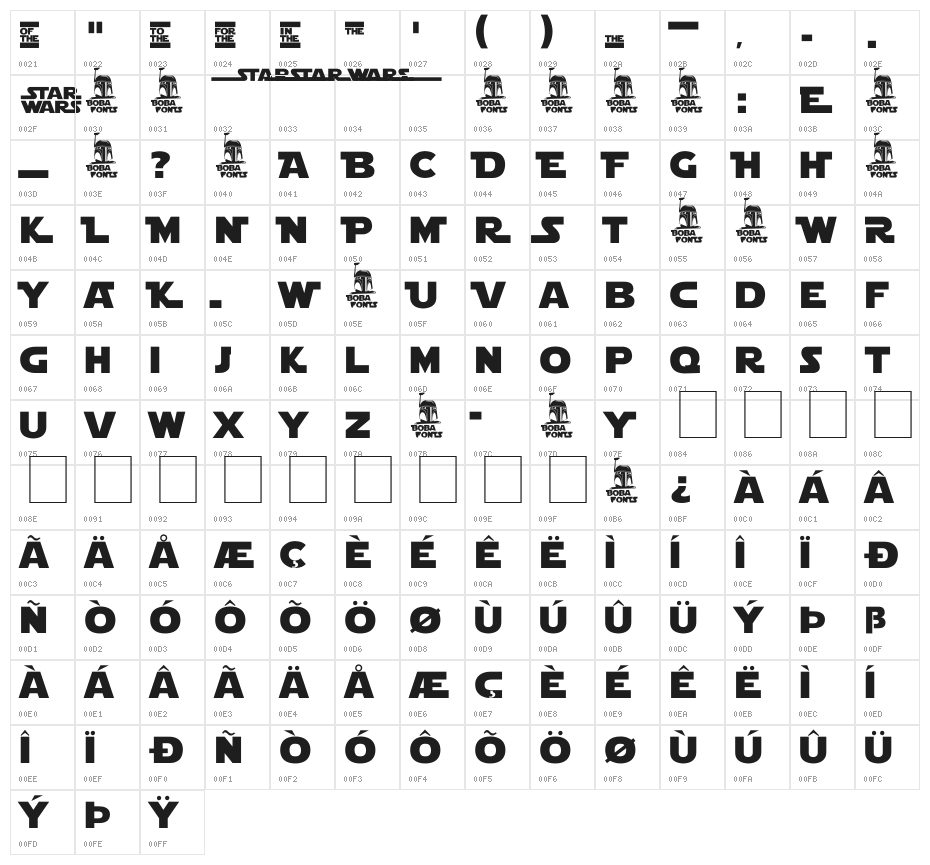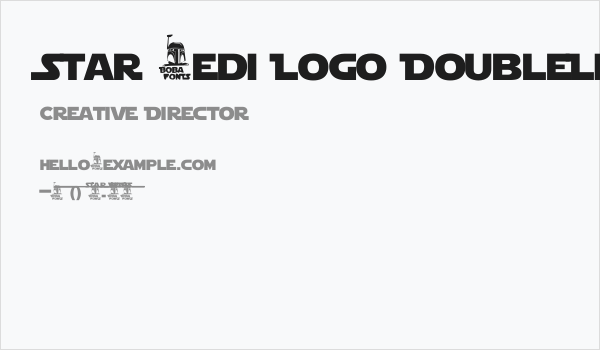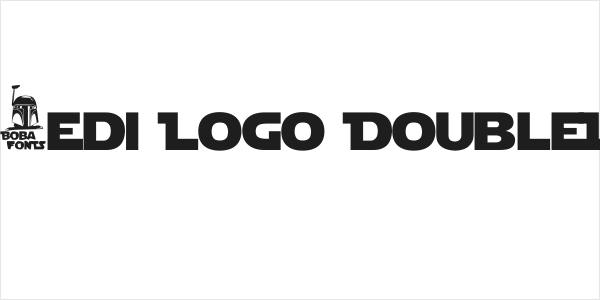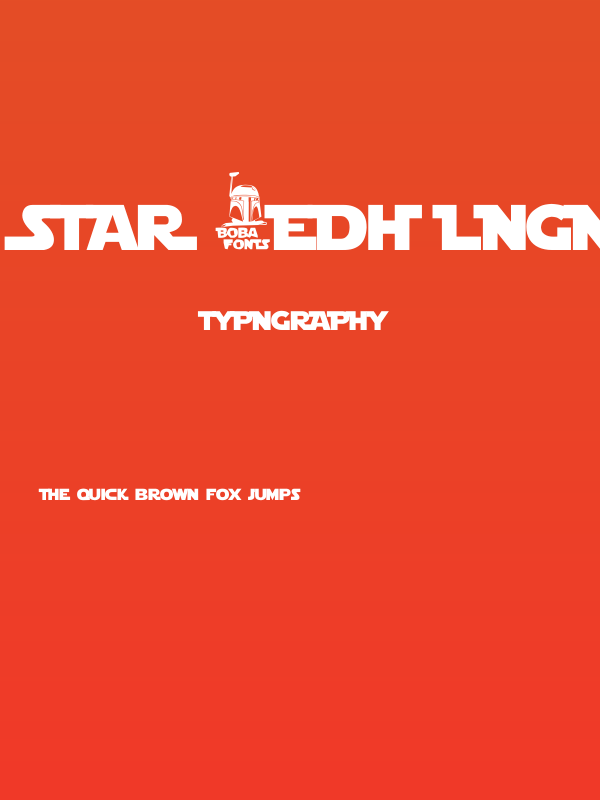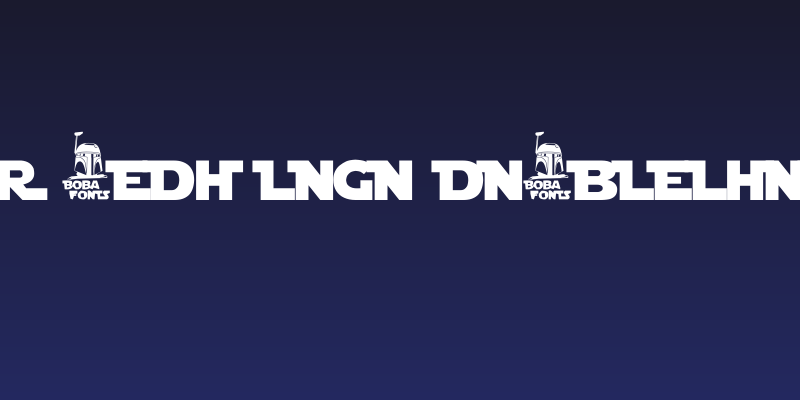
Star Jedi Logo DoubleLine1 Font
Star Jedi Logo DoubleLine1 Description
This font features a bold, futuristic design with a strong emphasis on geometric shapes and sharp angles. The uppercase letters are distinctly wide and blocky, giving a sense of strength and stability. The font is reminiscent of science fiction themes, with a style that evokes a sense of adventure and exploration. The characters are evenly spaced, providing a clean and organized appearance. This font is ideal for creating impactful headlines or logos that require a modern and dynamic look. The boldness of the letters ensures high visibility and readability, making it suitable for various digital and print media applications.
| Proposed Projects | Ideal for sci-fi movie posters, video game titles, futuristic branding, and themed event invitations. |